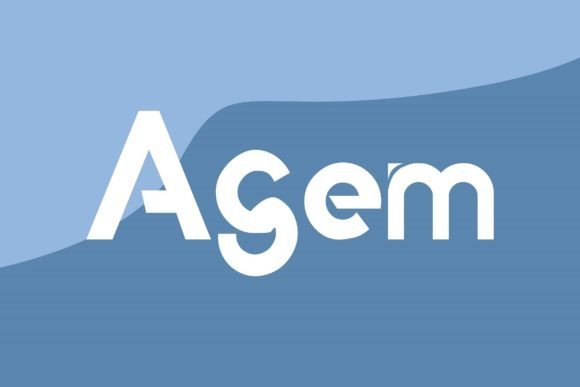
Meet the Perfect Companion for Your Next Creative Project
Have you ever found yourself staring at a blank page, waiting for inspiration to strike? The cursor blinks, and the clock ticks, but nothing seems to spark the creativity you’re craving. This is where the magic happens – when you stumble upon the perfect font to bring your vision to life. For designers, discovering a font that perfectly captures the essence of their project is like finding a long-lost treasure.
Enter the Agem Font, a delightful hand-lettered sans-serif font that’s as fun as it is functional. This charming font is perfect for a wide range of applications, from web design to party invitations, and even book covers. With its simple yet playful design, the Agem Font is an invaluable addition to any designer’s toolkit.
Agem Font Key Features
- Font Family: Agem Font is a sans-serif font family designed for digital use.
- Unique Characteristics: Agem Font features a clean, modern design with subtle rounded edges and a balanced x-height, making it easy to read in digital environments.
Agem Font Review
Agem Font, designed by Aleksandar Stanisic, is a sans-serif typeface that tries to capture the essence of a minimalist design. While it’s not perfect, there are some aspects that I appreciate.
- Neutral and clean appearance: Agem Font has a smooth, rounded feel to it, making it suitable for body text and headings alike.
- Good legibility: The font is designed to be clear and easy to read, even at smaller font sizes.
- Flexibility: Agem Font is available in various weights and styles, making it versatile for different design projects.
- Lack of distinctiveness: Agem Font doesn’t have a strong personality, which might make it blend in with other sans-serif fonts.
- Not ideal for bold statements: The font’s rounded edges can make it look less dramatic or attention-grabbing compared to other fonts.
Overall, Agem Font is a decent choice for designers who prefer a clean and neutral aesthetic. However, it might not be the best option for projects that require a strong, distinctive voice.
Agem Font Practical Application Guide
For best results, use Agem Font in bold or italic styles to add emphasis to your text.
For best results, use Agem Font in combination with other design elements, such as graphics and textures, to create a visually appealing design.
For best results, use Agem Font in headings and titles to add visual interest to your document.
Agem Font is ideal for use in:
- Designing logos and branding materials.
- Creating posters and flyers.
- Developing marketing materials, such as brochures and business cards.
Remember to use Agem Font consistently throughout your design to create a cohesive and professional look.
Alternatives to Agem Font for Designers
Inter Font is a modern sans-serif font designed by Rasmus Andersson. It is a versatile font suitable for digital products, such as apps, websites, and mobile devices. Inter Font is ideal for use in headings and body text due to its clean and legible design.
Inter Font is similar to Agem Font in its clean and modern design, but it has a slightly more geometric feel. Inter Font is a better choice for digital products, while Agem Font is more suitable for print materials.
Akrobat Font
Akrobat Font is a geometric sans-serif font designed by Production Type. It is a highly legible font that works well for digital and print materials. Akrobat Font is ideal for use in headings, titles, and body text due to its clean and modern design.
Akrobat Font is similar to Agem Font in its geometric design, but it has a more playful and energetic feel. Akrobat Font is a better choice for materials that require a bold and attention-grabbing design.
Montserrat Font is a sans-serif font designed by Julieta Ulanovsky. It is a highly legible font that works well for digital and print materials. Montserrat Font is ideal for use in headings, titles, and body text due to its clean and modern design.